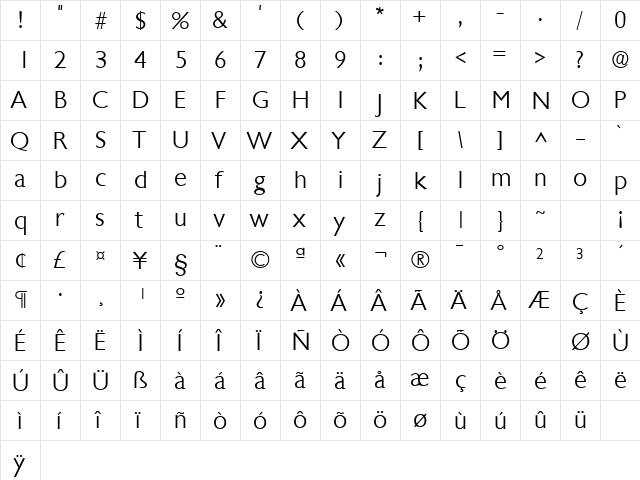
ChantillyLH Regular
Design Context for ChantillyLH Typeface
ChantillyLH is a composed and adaptable typeface that performs quietly and consistently across a wide range of design contexts.